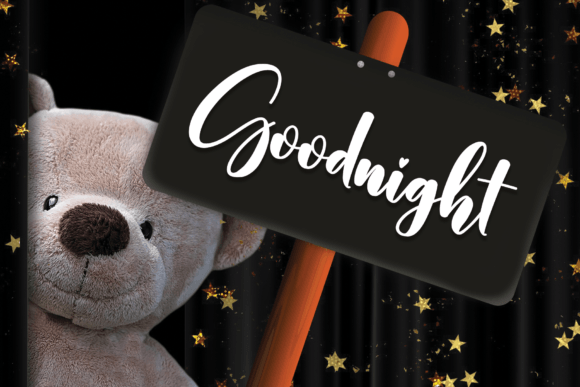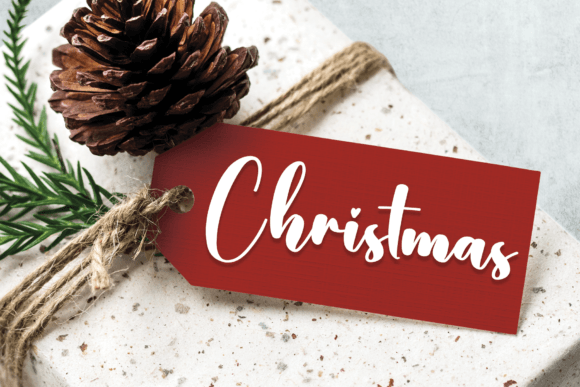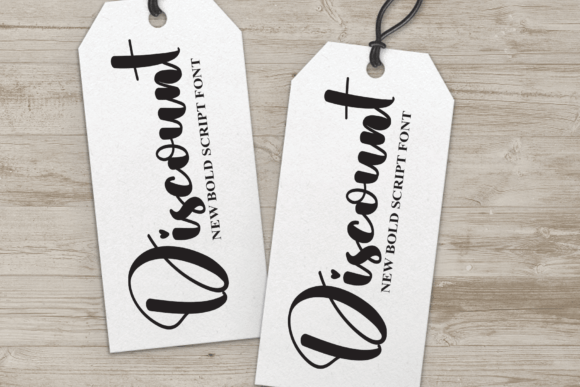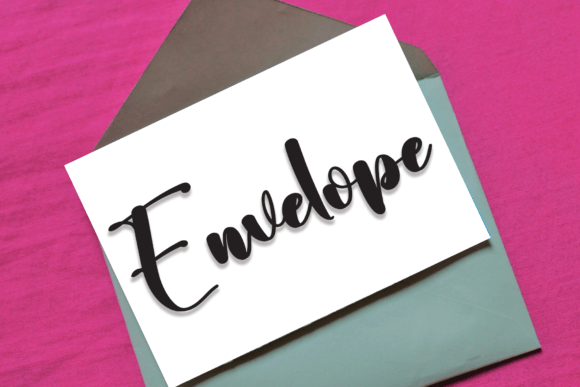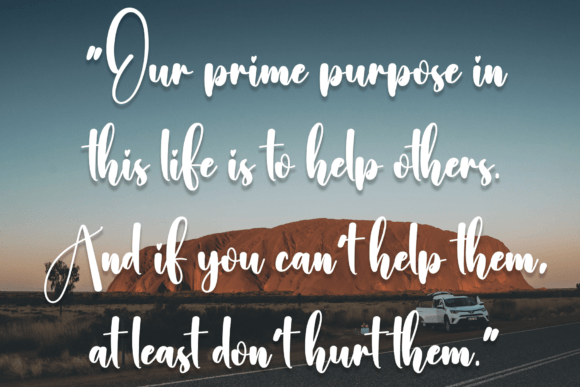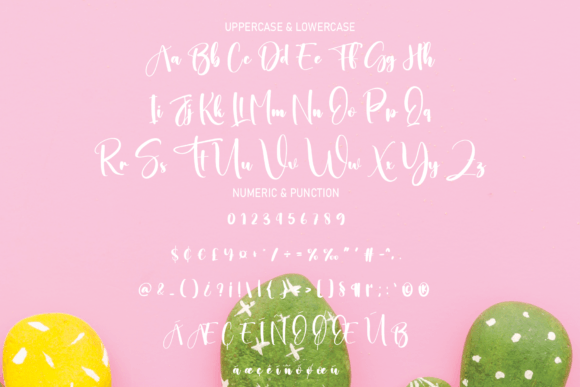
Introduction to Pinky Font
Pinky is a unique and beautiful handwritten font that will give you an extraordinary experience.
It is perfect for wall displays, wedding invitations, social media posts, logos, advertisements, product packaging, product designs, labels, photography, watermarks, stationery, and any project that requires a handwritten taste .
Key Features of Pinky Font